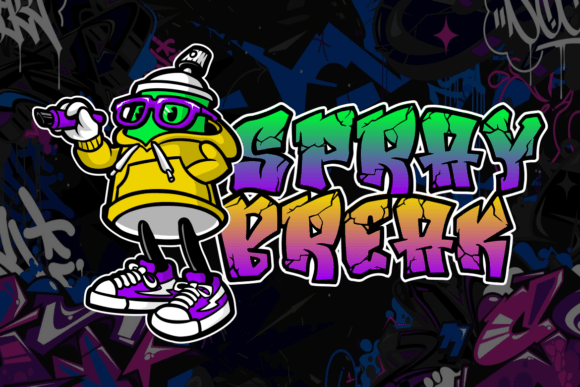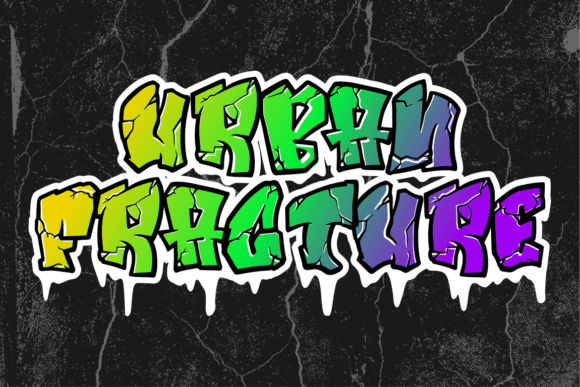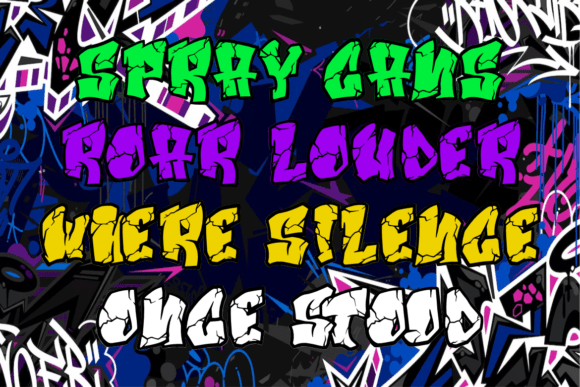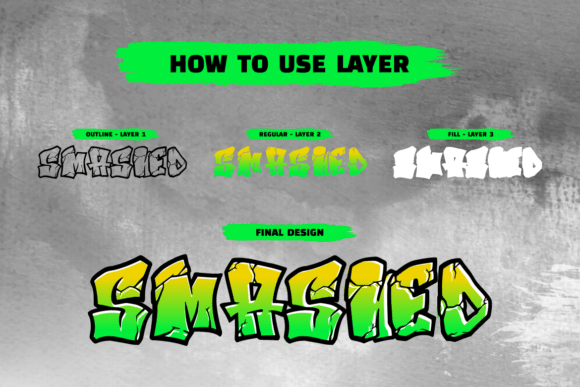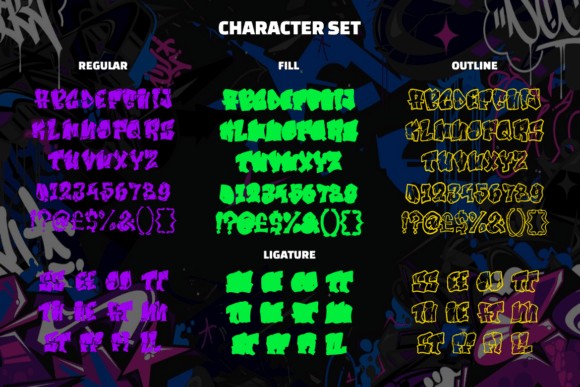
Introduction to Smashed Graffiti Font
You’ve finally landed that big creative project, and it’s time to unleash your bold vision. As a designer, you’re always on the lookout for that perfect design resource to take your work to the next level. That’s where Smashed Graffiti Font comes in – a game-changing, high-quality font that’s about to revolutionize your creative process.
Imagine being able to add a touch of urban grit to your designs, making them stand out in a crowded space. With Smashed Graffiti Font, you can do just that. Its striking, chunky letters and distinctive broken edges are designed to capture the essence of street culture, adding a rebellious flair to your work. Whether you’re working on a branding project, creating eye-catching posters, or crafting bold event invitations, this font is the perfect tool to help you amplify your message.
But what really sets Smashed Graffiti Font apart is its versatility. With its vibrant layered style, you can customize the color and depth of each character, giving you endless creative possibilities. And with a transparent background, you can easily integrate it into your designs, making it a valuable asset for any designer looking to add a touch of high-quality, urban chic to their work.
Key Features of Smashed Graffiti Font
- High-quality design resource ideal for creative projects requiring a unique and edgy look.
- Features a transparent background, allowing for easy integration into various design elements.
- Designed with a high resolution of 300 DPI, ensuring crisp and clear display on various devices and mediums.
- Unique, hand-drawn style with a distressed effect, adding a touch of authenticity to any design project.
- Perfect for use in digital art, graphic design, and creative projects, such as posters, flyers, and social media graphics.
Honest Review: Smashed Graffiti Font
As a designer, I’m always on the lookout for unique and high-quality design resources to elevate my creative projects. Recently, I stumbled upon the Smashed Graffiti Font, and I’m excited to share my honest review with you.
- ✨ The font’s distressed and gritty texture adds a touch of edginess to any design project.
- ✨ The font comes with a transparent background, making it easy to customize and integrate into your design.
However, I do have a few reservations:
- ⚠️ The font is quite bold and may not be suitable for all design projects, especially those that require a more subtle look.
Overall, I’m impressed with the Smashed Graffiti Font’s potential to add a unique touch to creative projects. While it may not be suitable for every design scenario, it’s definitely worth considering for those looking for a bold and eye-catching font. Just be aware of its limitations and adjust your expectations accordingly.
The Smashed Graffiti Font is commonly used in various creative projects, including:
- Event invitations and flyers
- Business logos and branding
- Printable art and wall decor